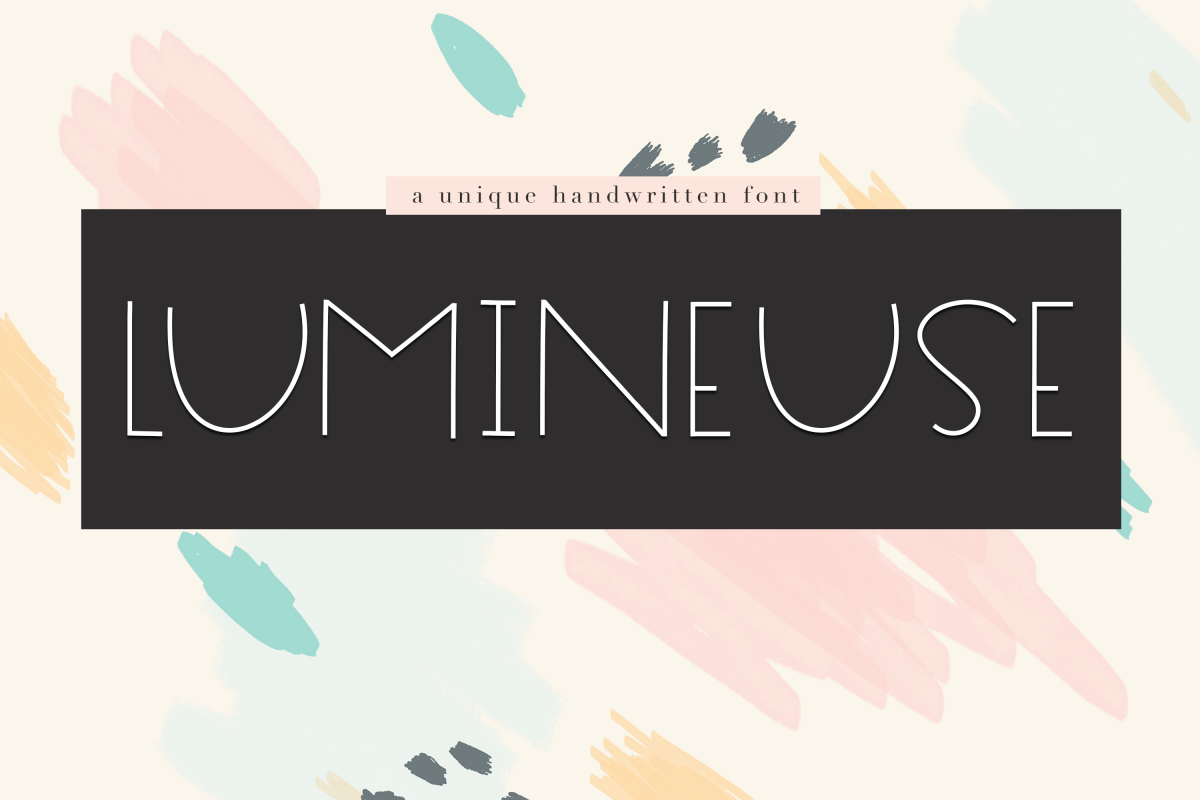
Lumineuse - A Thin Handwritten Font
Lumineuse-Medium
Lumineuse is a cute handwritten font.
This font is perfect for quotes, headings, blogs, logos, invitations and more!
This font does include accent characters.